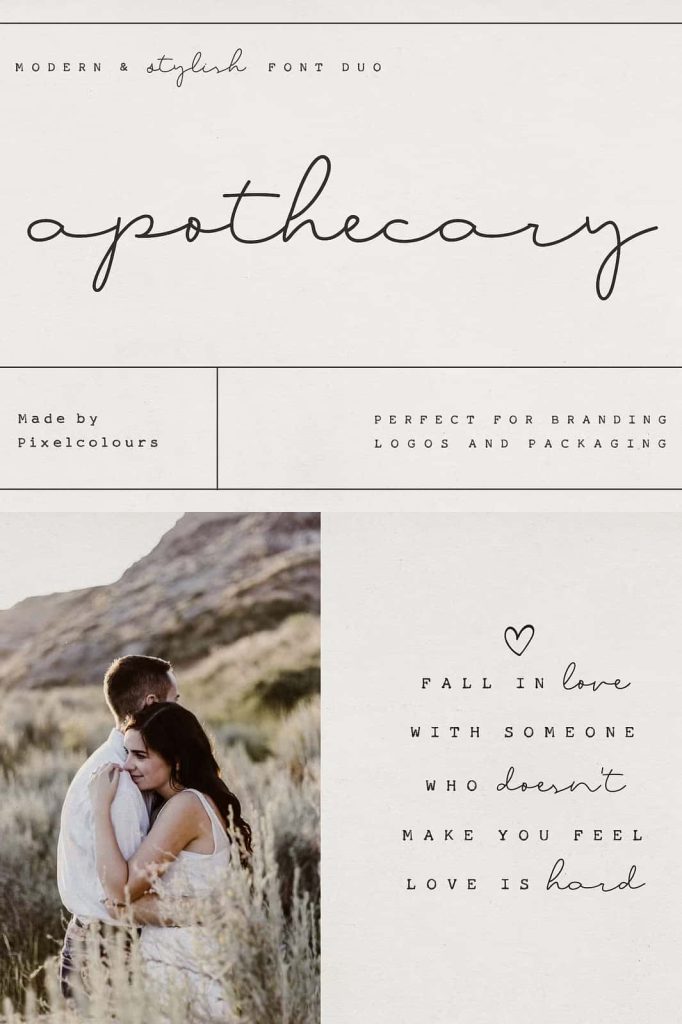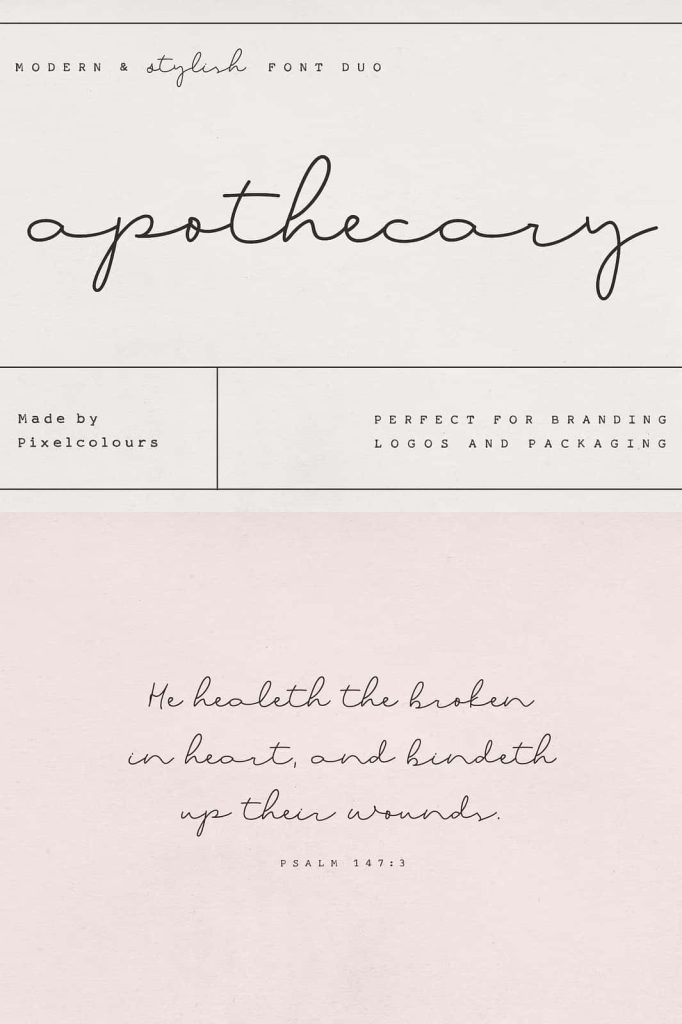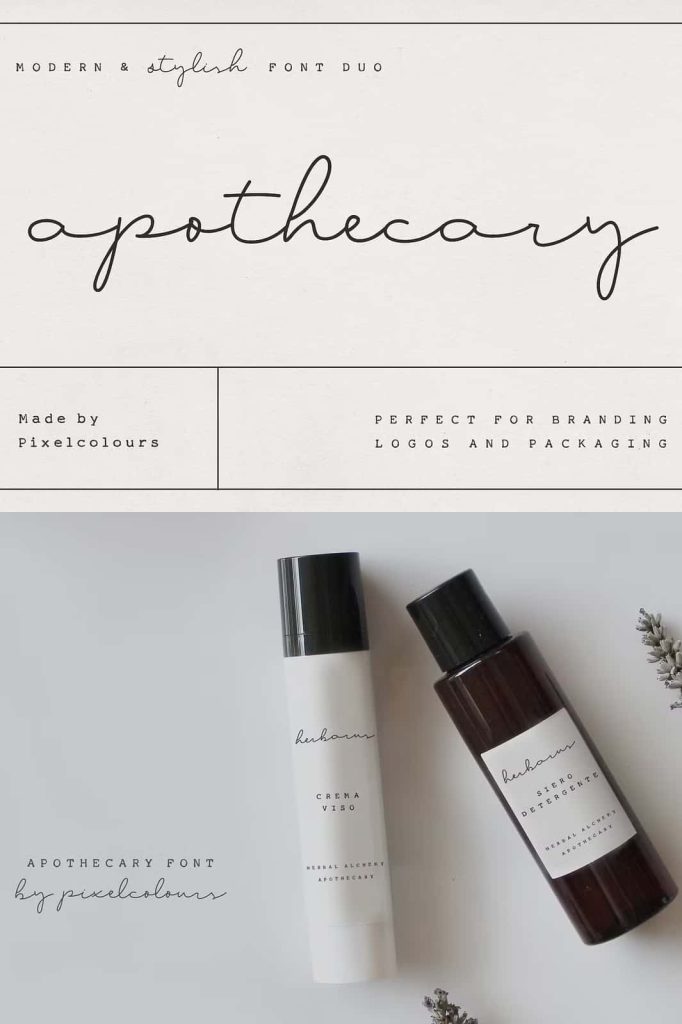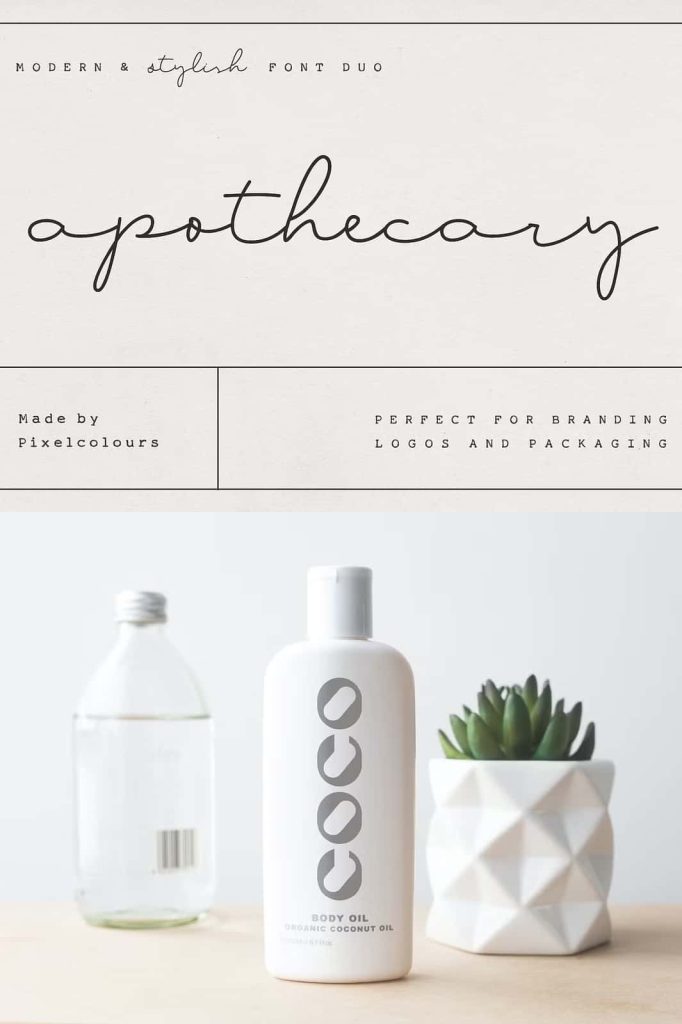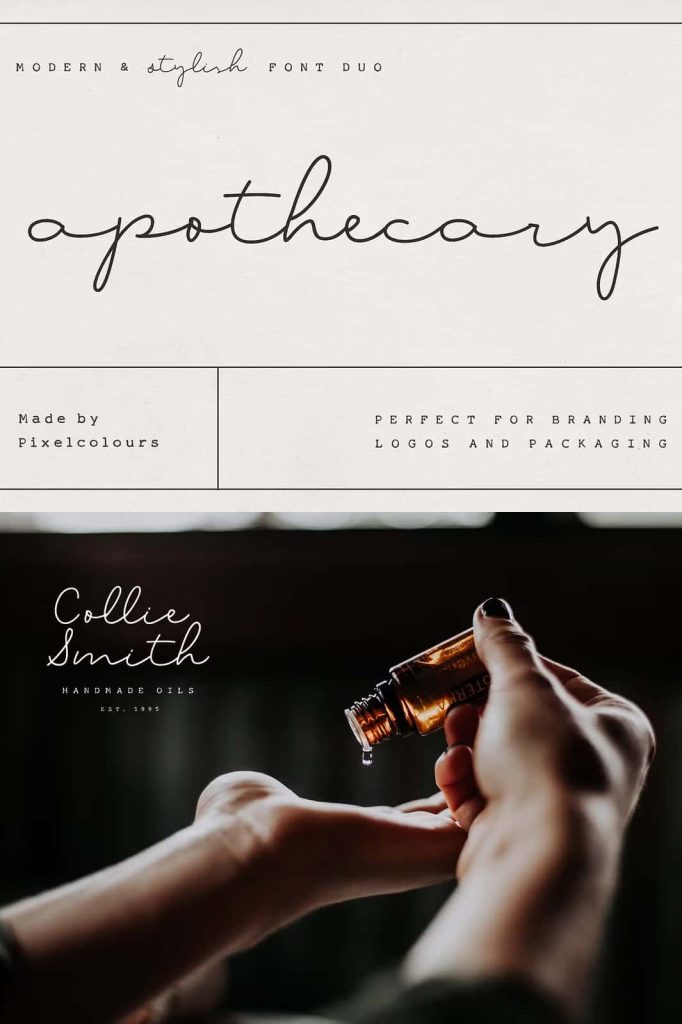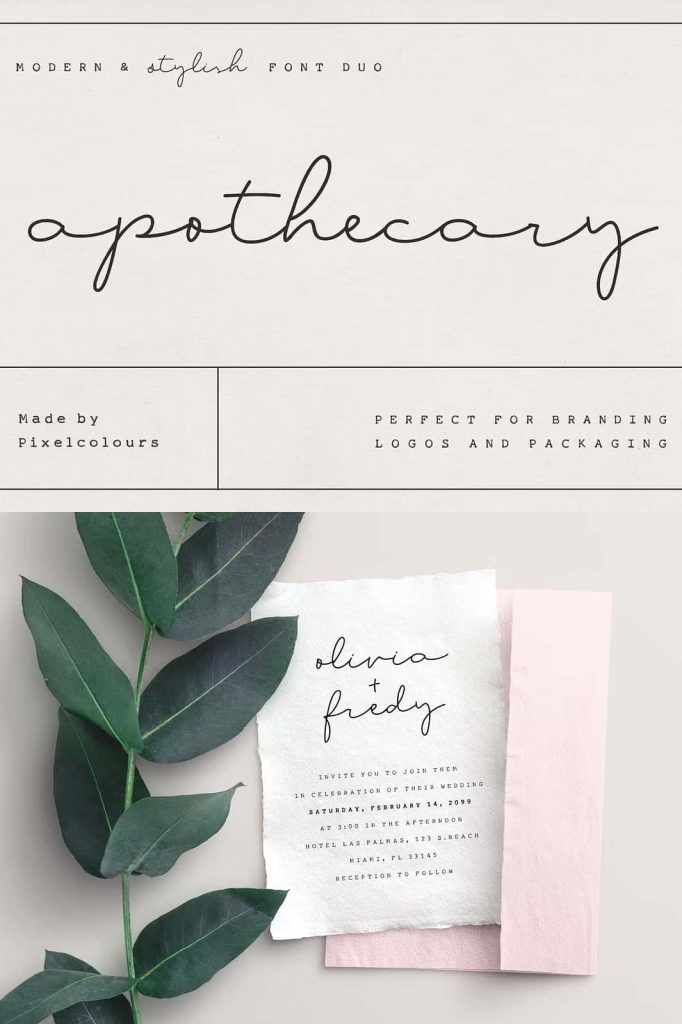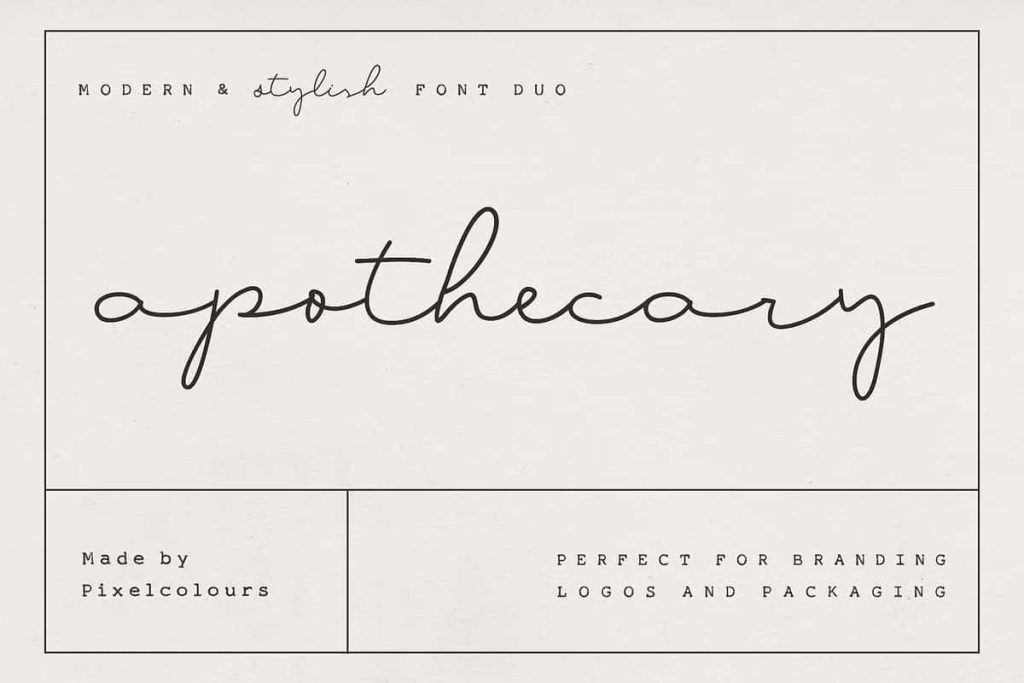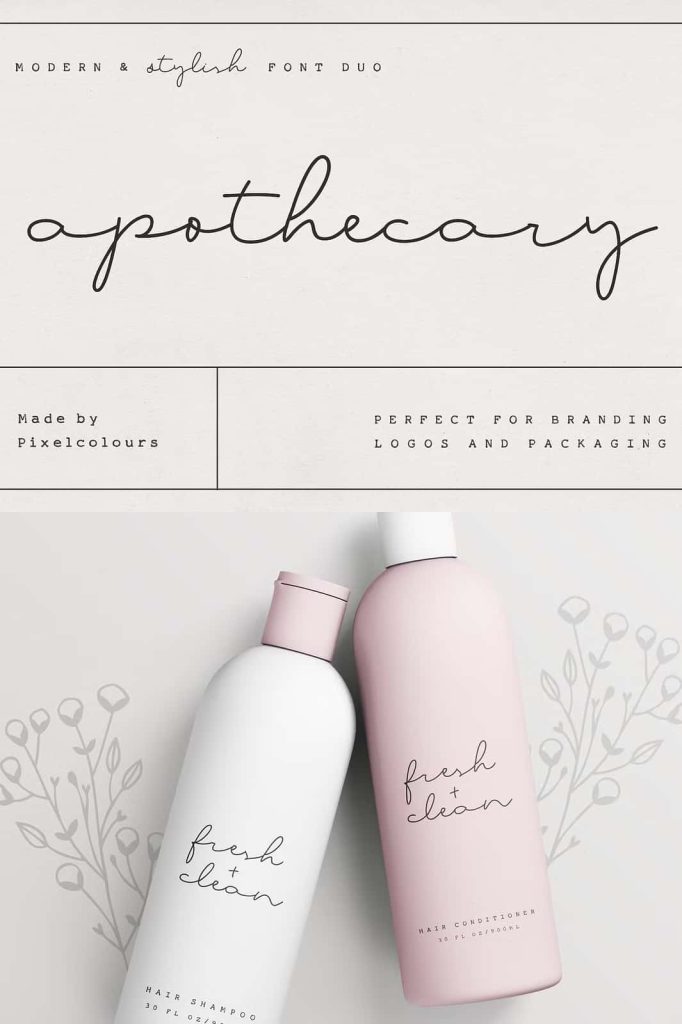
Apothecary Font Duo: A Stylish Combination of Script and Typewriter Fonts
Apothecary Font Duo is a modern and stylish typeface pairing designed to bring elegance, character, and versatility to creative design projects. This carefully crafted font duo combines a graceful flowing script with an authentic typewriter-style font, creating a balanced typographic system that works beautifully across a wide range of design applications.
The combination of these two fonts allows designers to create layouts that feel both sophisticated and natural. The script font adds softness and artistic expression, while the typewriter font introduces structure and vintage character. Together, they form a harmonious pairing that makes typography feel dynamic, readable, and visually engaging.
Apothecary Font Duo works especially well in branding, logo design, botanical labels, product packaging, and elegant wedding invitations. Designers can easily use the fonts together or separately to produce unique and professional typography for both print and digital projects.
A Flowing Script Font with Elegant Movement
The script component of Apothecary Font Duo features smooth strokes and graceful curves that resemble natural handwriting. Each letter flows beautifully into the next, creating a refined script style that feels warm, expressive, and elegant. This handwritten character allows designers to introduce personality and charm into their typography.
The flowing structure of the script font makes it ideal for highlighting names, titles, and decorative phrases. Designers often use script fonts in branding and invitation design because they communicate sophistication while maintaining a personal touch. The script included in Apothecary Font Duo delivers exactly that balance.
Because of its smooth and natural appearance, the script font works beautifully in logos, brand signatures, and promotional graphics. It also adds elegance to wedding stationery and creative social media designs. The graceful letterforms help transform simple words into visually striking typography.
An Authentic Typewriter Font with Vintage Character
Complementing the elegant script is a typewriter-style font inspired by authentic typewriting. This font recreates the classic appearance of letters produced by vintage typewriters, bringing a nostalgic and handcrafted quality to modern designs.
The slightly irregular texture and mechanical letter shapes give the typewriter font a distinctive personality. These details help designers create typography that feels organic, historical, and authentic. The font is particularly effective for projects that aim to evoke vintage aesthetics or handcrafted design styles.
Designers can use the typewriter font for body text, labels, captions, or supporting information. Its structured appearance contrasts beautifully with the flowing script, helping maintain readability while adding character to the design.
A Perfect Balance Between Elegance and Authenticity
The strength of Apothecary Font Duo lies in the harmony between its two typefaces. The elegant script and vintage typewriter font complement each other naturally. While the script font adds fluidity and artistic style, the typewriter font introduces structure and visual balance.
This contrast allows designers to create layered typography with clear hierarchy. For example, the script font can highlight brand names or decorative headlines, while the typewriter font handles descriptive text or supporting information. The result is a visually rich design that remains easy to read and aesthetically balanced.
This pairing is especially useful for projects that require both elegance and authenticity. Designers can use the fonts together to create designs that feel modern yet timeless.
Perfect for Logos and Branding
Apothecary Font Duo provides excellent tools for building unique brand identities. The script font offers a stylish signature look that works well for logos and brand names. Meanwhile, the typewriter font reinforces the brand message by adding vintage charm and clarity.
This combination works particularly well for boutique businesses, artisan brands, organic product companies, and lifestyle businesses. Brands that want to communicate craftsmanship, authenticity, and elegance can benefit from the distinctive typography of this font duo.
Designers can also use the fonts separately depending on the design needs. The script font can function as a primary brand element, while the typewriter font supports information hierarchy across marketing materials.
Ideal for Botanical Labels and Apothecary Packaging
The name Apothecary reflects the font duo’s suitability for botanical and herbal-themed designs. Designers often use this typeface pairing for labels, product packaging, and branding related to natural products, herbal remedies, skincare, and botanical goods.
The script font adds elegance and natural beauty to product names, while the typewriter font provides clear and structured information for ingredients, descriptions, and instructions. This balance helps create packaging that looks both sophisticated and authentic.
The vintage typewriter aesthetic also complements the traditional feel of apothecary-style products, making it perfect for herbal packaging and artisan labels.
Create Elegant Wedding Invitations and Stationery
Apothecary Font Duo is also an excellent choice for wedding and event design. Elegant script fonts are widely used in wedding invitations because they highlight names and decorative text beautifully. The flowing script included in this font duo enhances the romantic and sophisticated tone of wedding stationery.
Meanwhile, the typewriter font can present essential event information such as dates, locations, and details in a clear and readable format. This pairing allows designers to build invitation layouts that feel both elegant and structured.
Wedding designers can use this font duo to create invitations, RSVP cards, programs, menus, and other event stationery that feels timeless and beautifully crafted.
Versatile for Creative and Digital Design Projects
Beyond branding and invitations, Apothecary Font Duo adapts easily to many creative applications. Designers can use it for social media graphics, promotional posters, website headers, editorial layouts, and creative marketing materials.
The elegant script font helps capture attention in headlines and promotional messages, while the typewriter font ensures clarity in supporting text. This flexibility allows designers to maintain strong visual hierarchy while creating visually appealing typography.
The combination also works well for photography overlays, creative portfolios, and artistic projects that require expressive yet readable text.
Create Sophisticated Typography with Apothecary Font Duo
Apothecary Font Duo provides designers with a powerful typographic pairing that balances elegance with authenticity. The flowing script font introduces graceful movement and artistic charm, while the vintage typewriter font adds structure and character.
Together, these two fonts create a versatile typography system that works across branding, packaging, wedding design, and creative digital projects. Their natural harmony allows designers to produce professional layouts that feel visually rich and thoughtfully crafted.
If you are looking for a modern font pairing that blends vintage inspiration with contemporary elegance, Apothecary Font Duo offers the perfect solution for stylish and memorable design work.